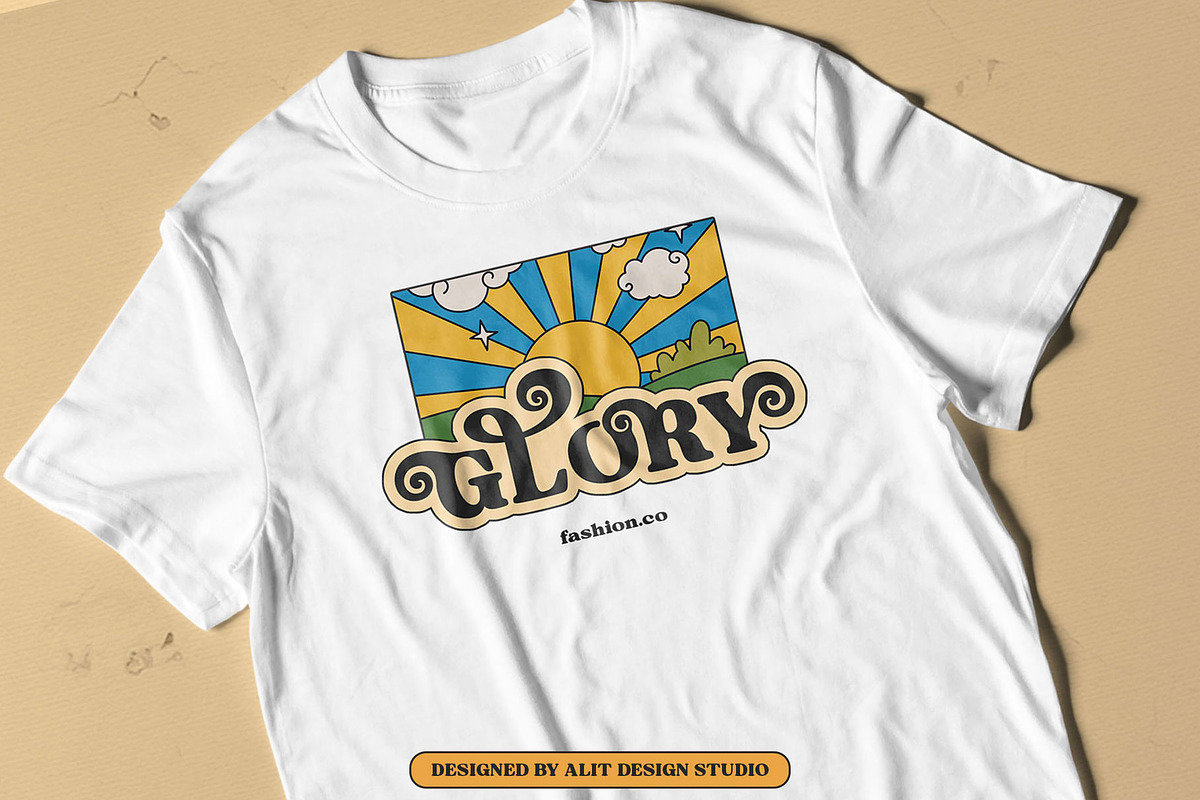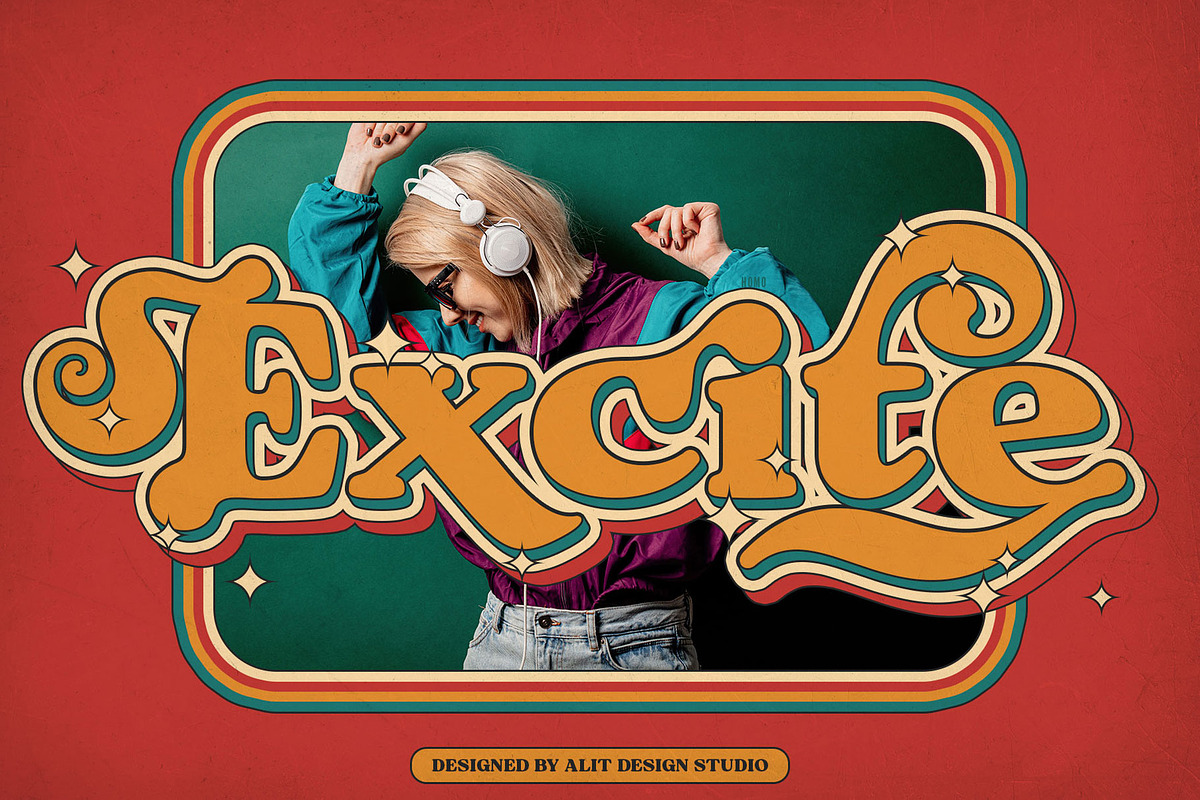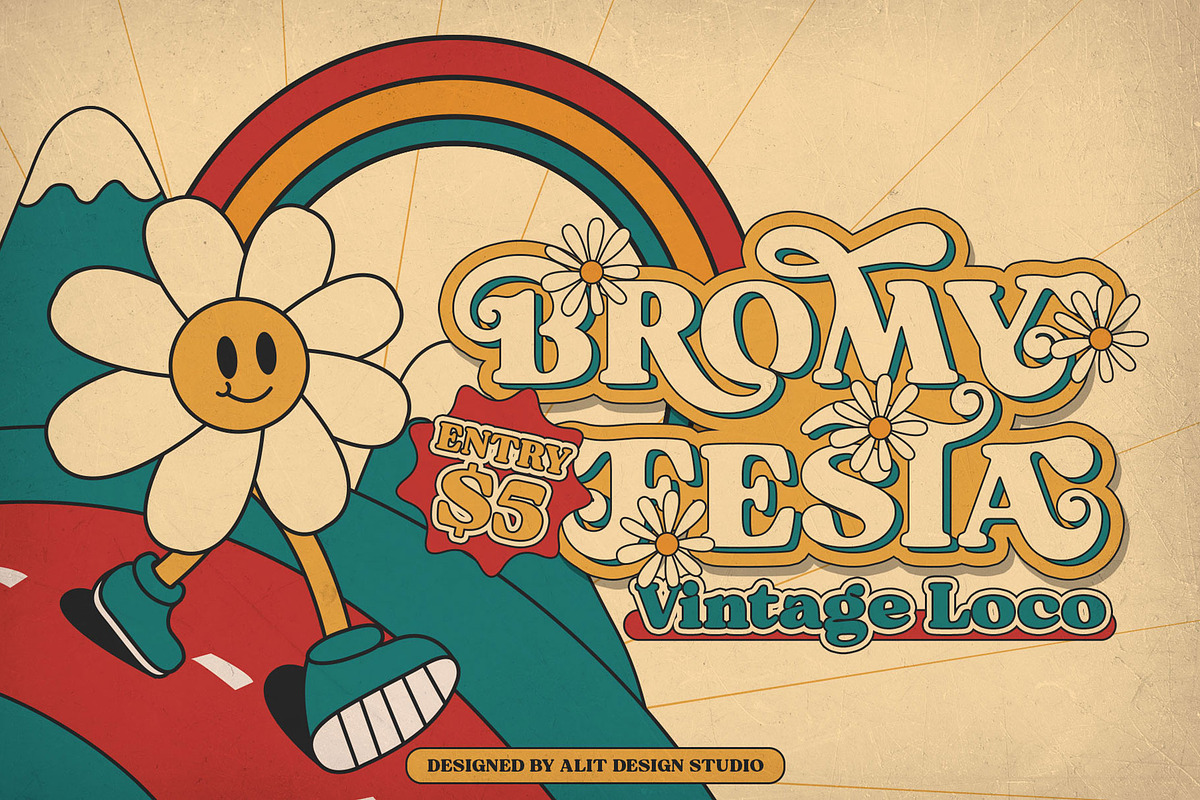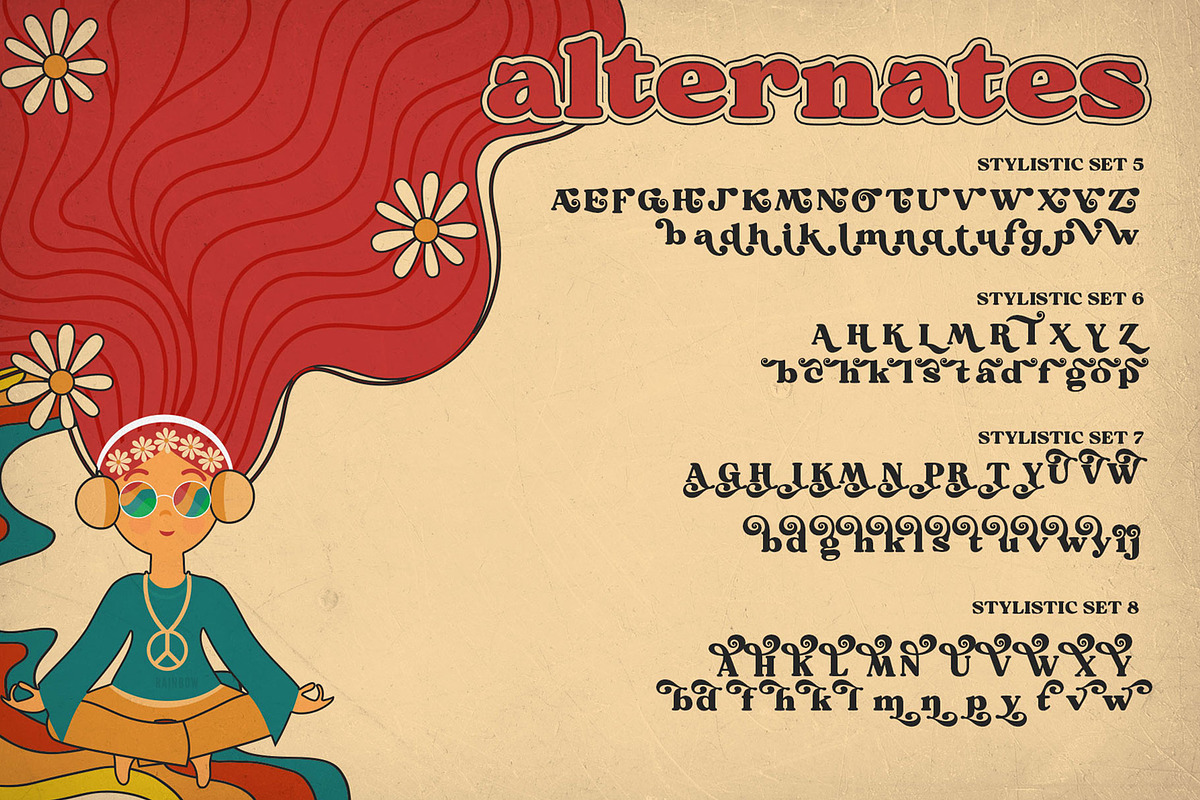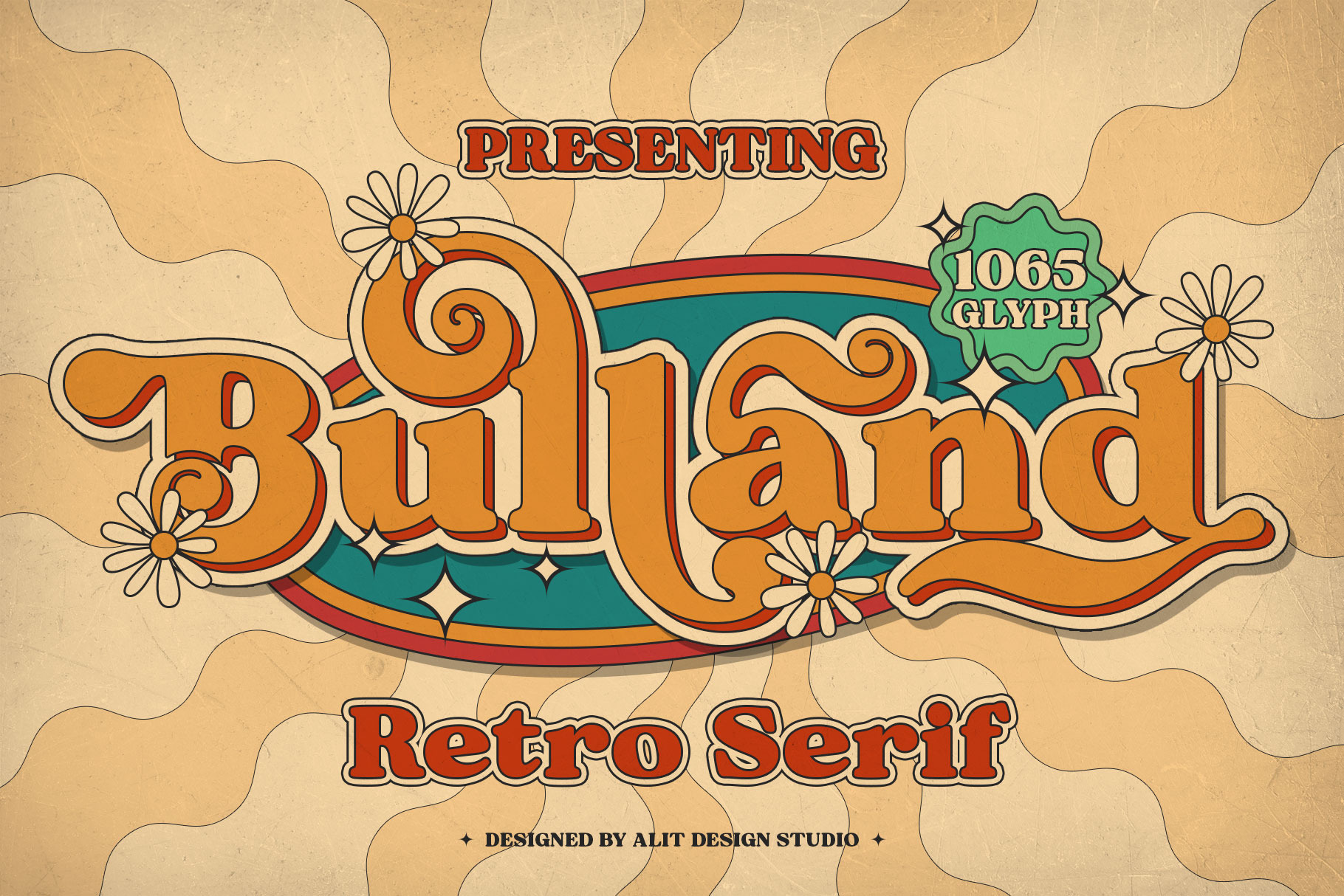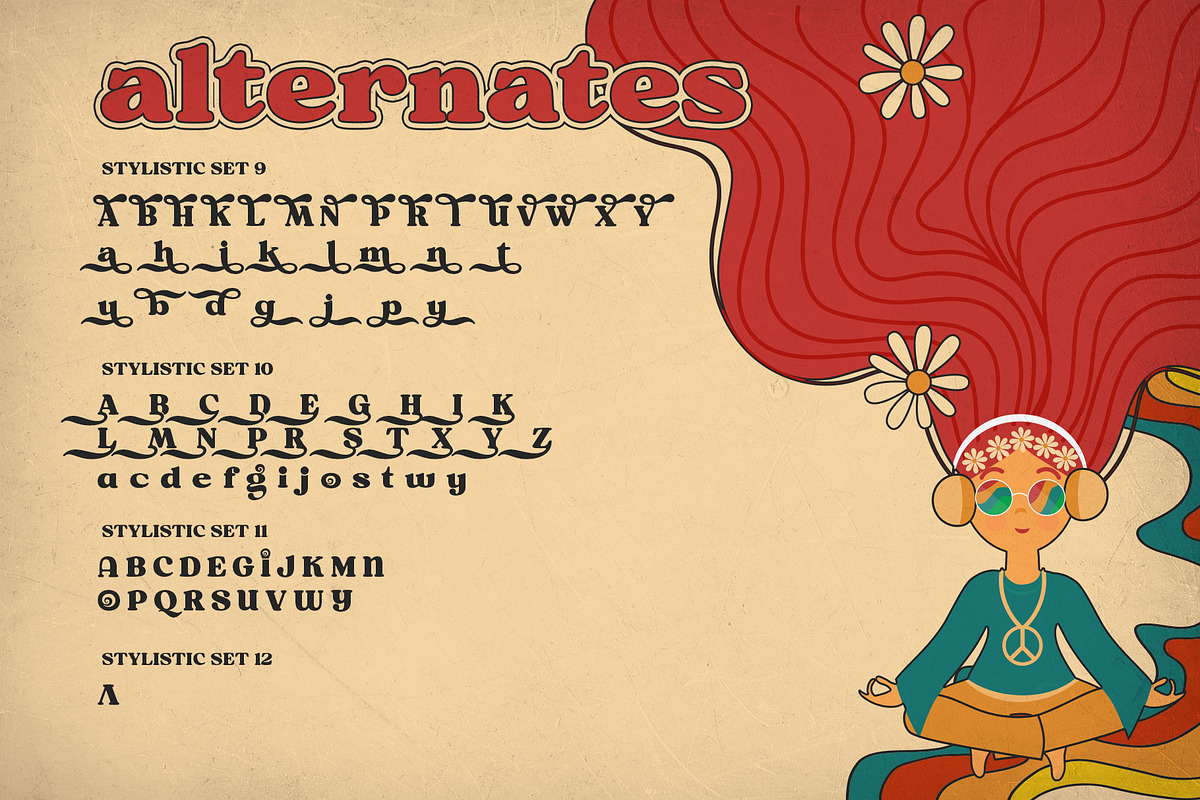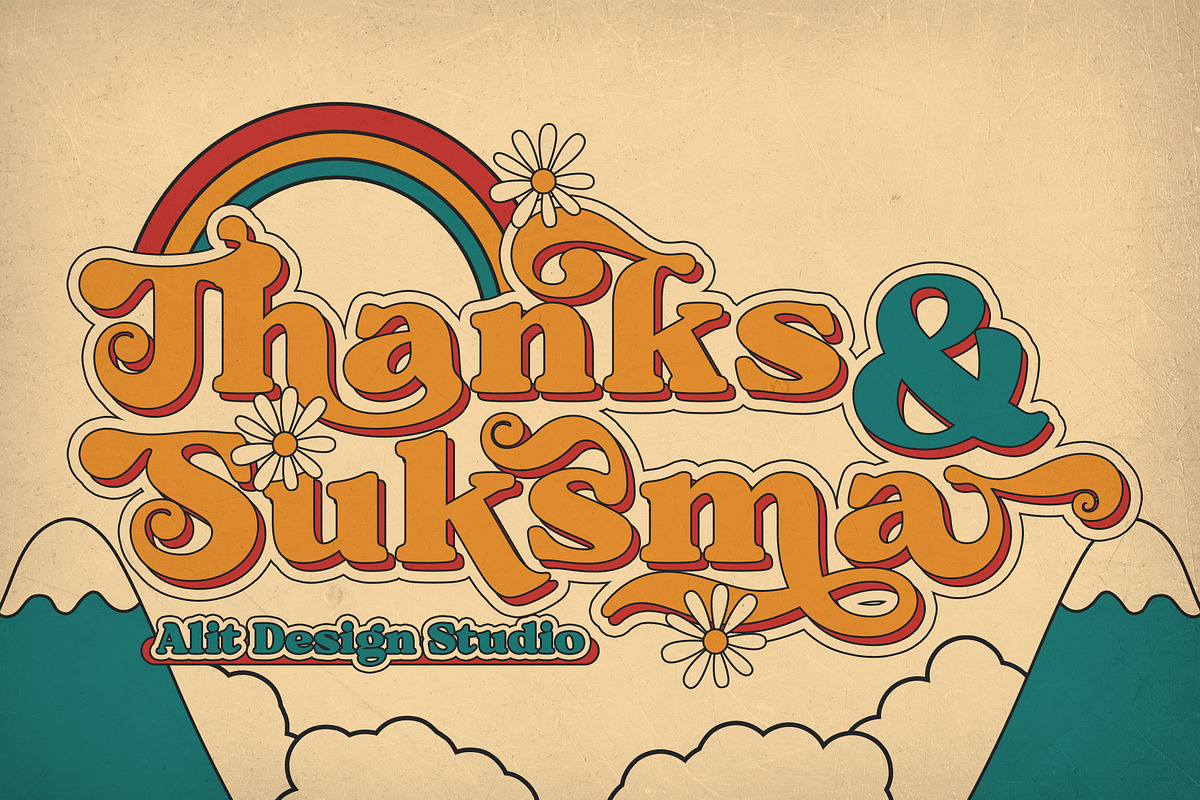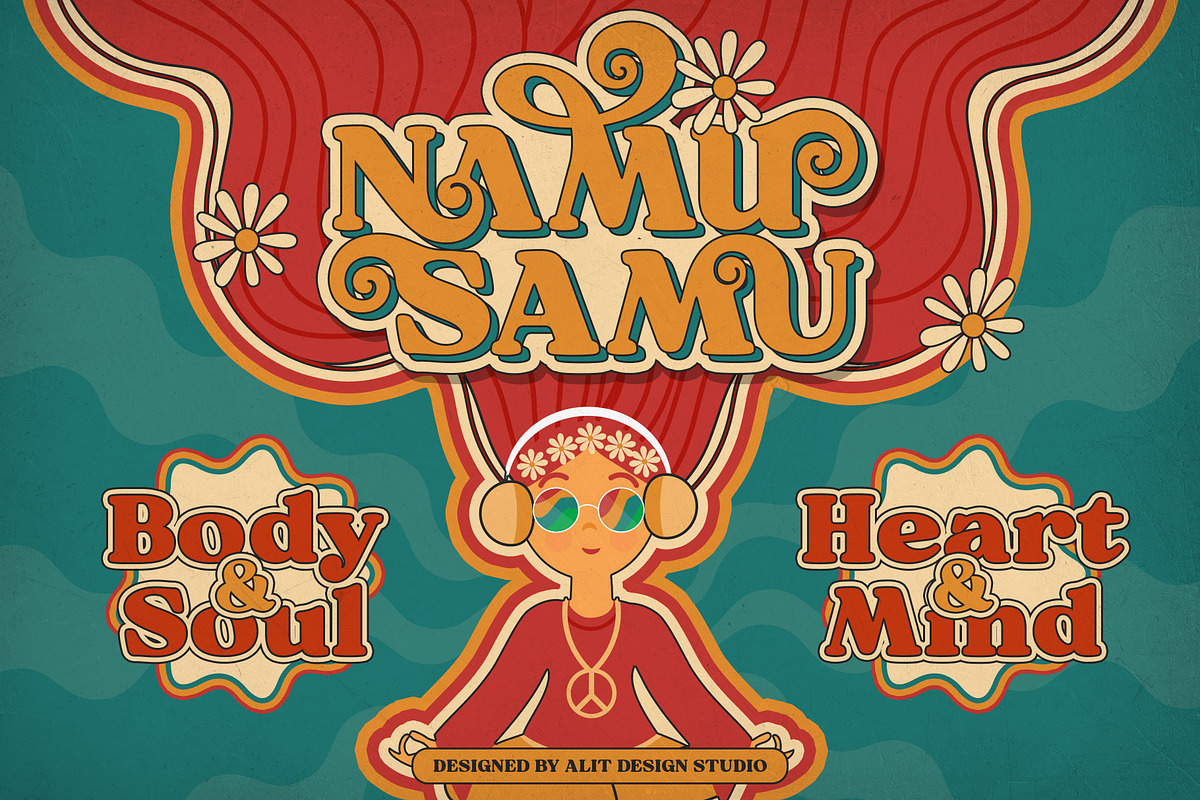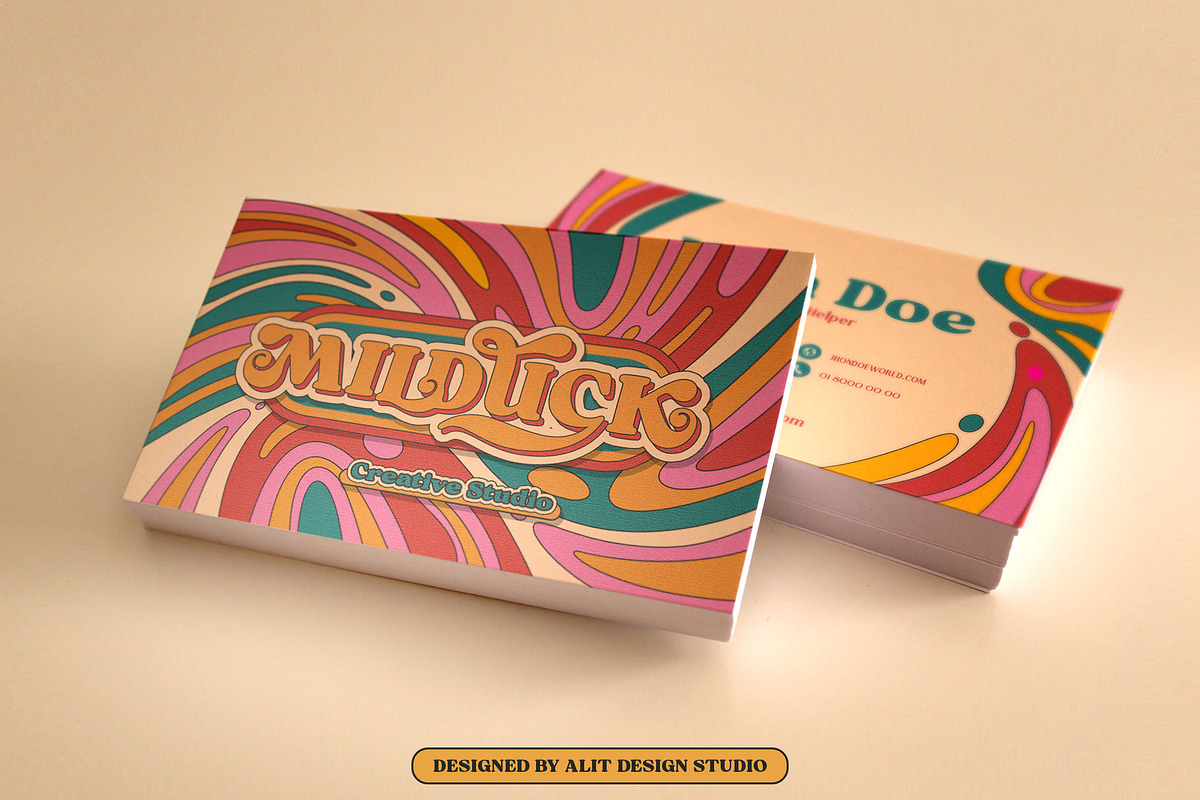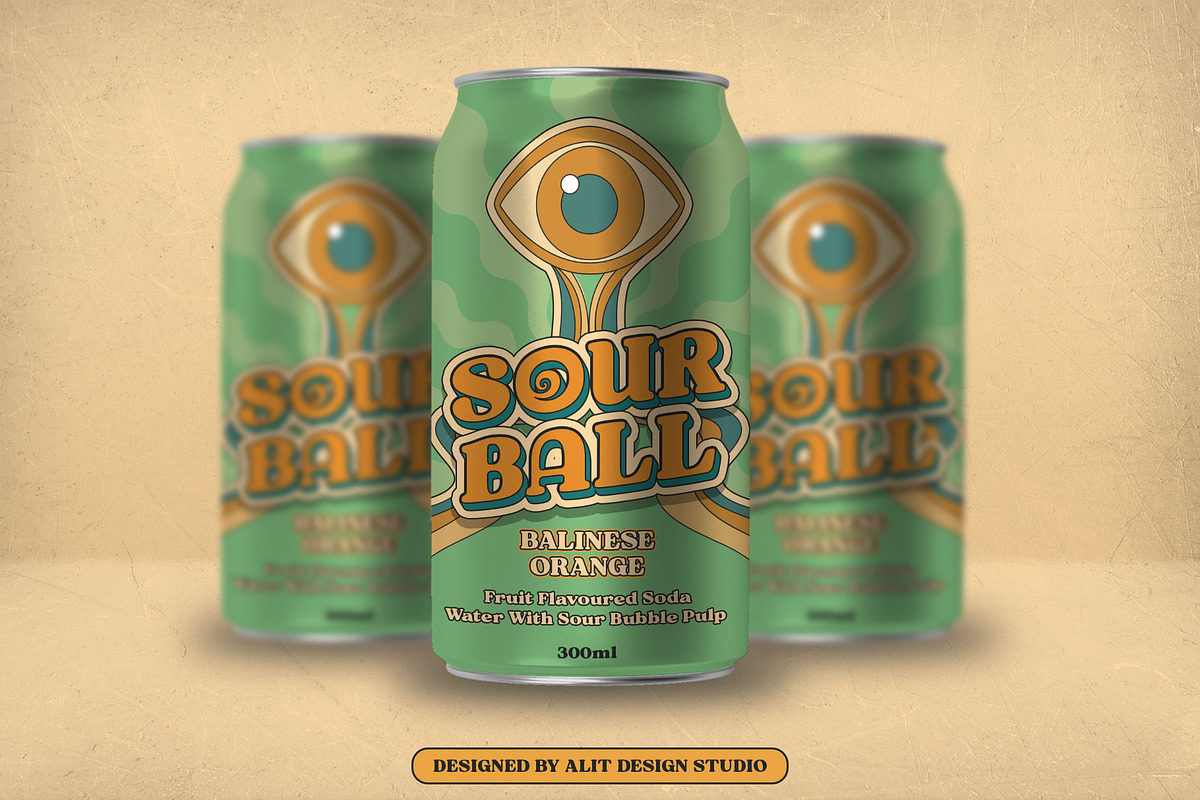
Bulland Typeface
The Bulland Typeface is inspired by stylish designs from the 80s to 90s. At that time the font style like "The Bulland Typeface" had a firm and trendy impression. The Bulland Typeface has a wide selection of alternative characters and swashes that make it easy to create bold retro-style designs.
The Bulland Typeface is very suitable for making designs with retro concepts, simple and playful designs, for example making magazine cover designs, music covers, YouTube thumbs, text headers, logotypes and so on with an elegant retort theme. Besides that this font is very easy to use both in design and non-design programs because everything changes and glyphs are supported by Unicode (PUA).
The Bulland Typeface has a total of 1065 glyphs including symbol, multilingual and alternative glyphs.
Language Support : Latin, Basic, Western European, Central European, South European,Vietnamese.